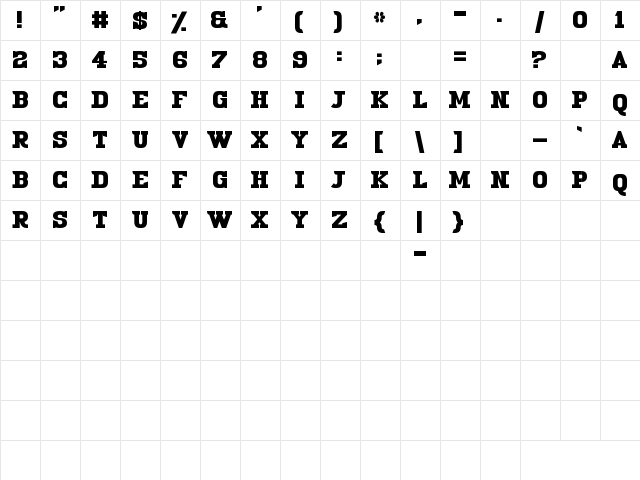
19th Century Renegade Regular
Design Context for 19th Century Renegade Typeface
19th Century Renegade offers clean, dependable letterforms without strong stylistic allegiance, making it a practical choice for designers who need flexibility.
Pro Tip: Pair 19th Century Renegade with a font of contrasting weight or personality to build a more expressive typographic hierarchy.